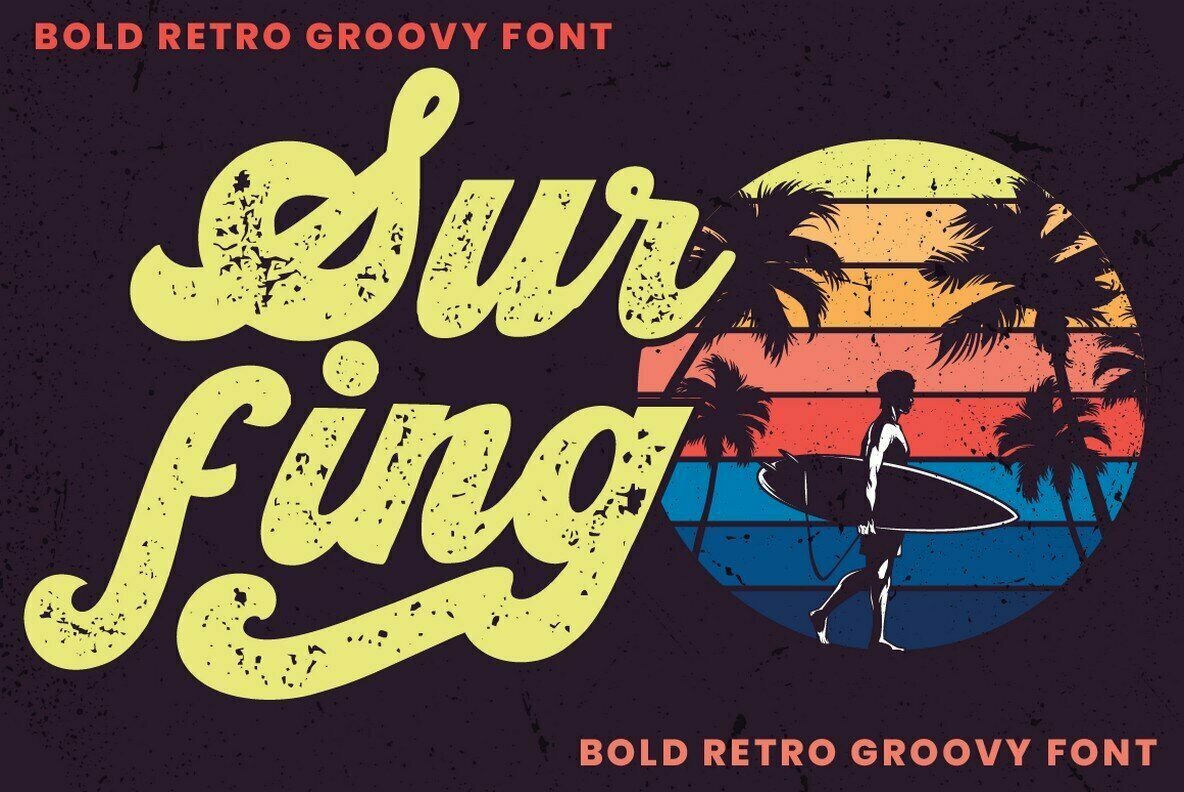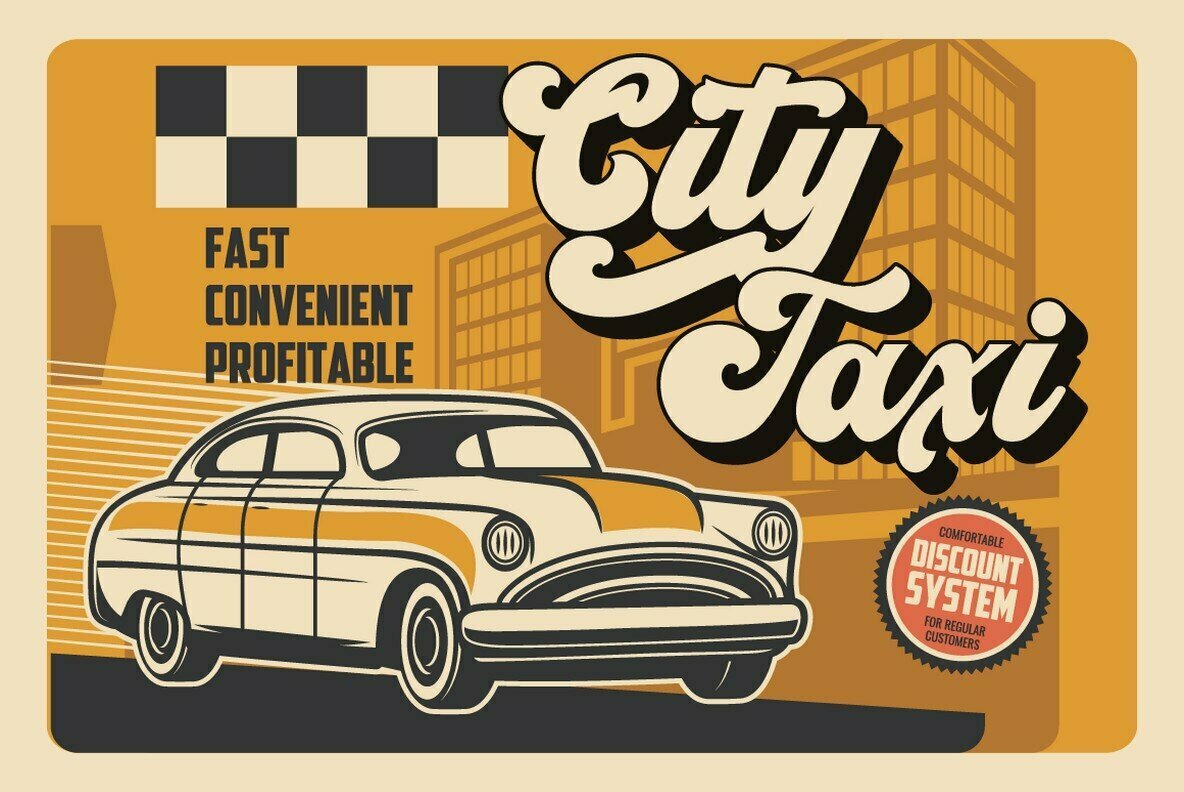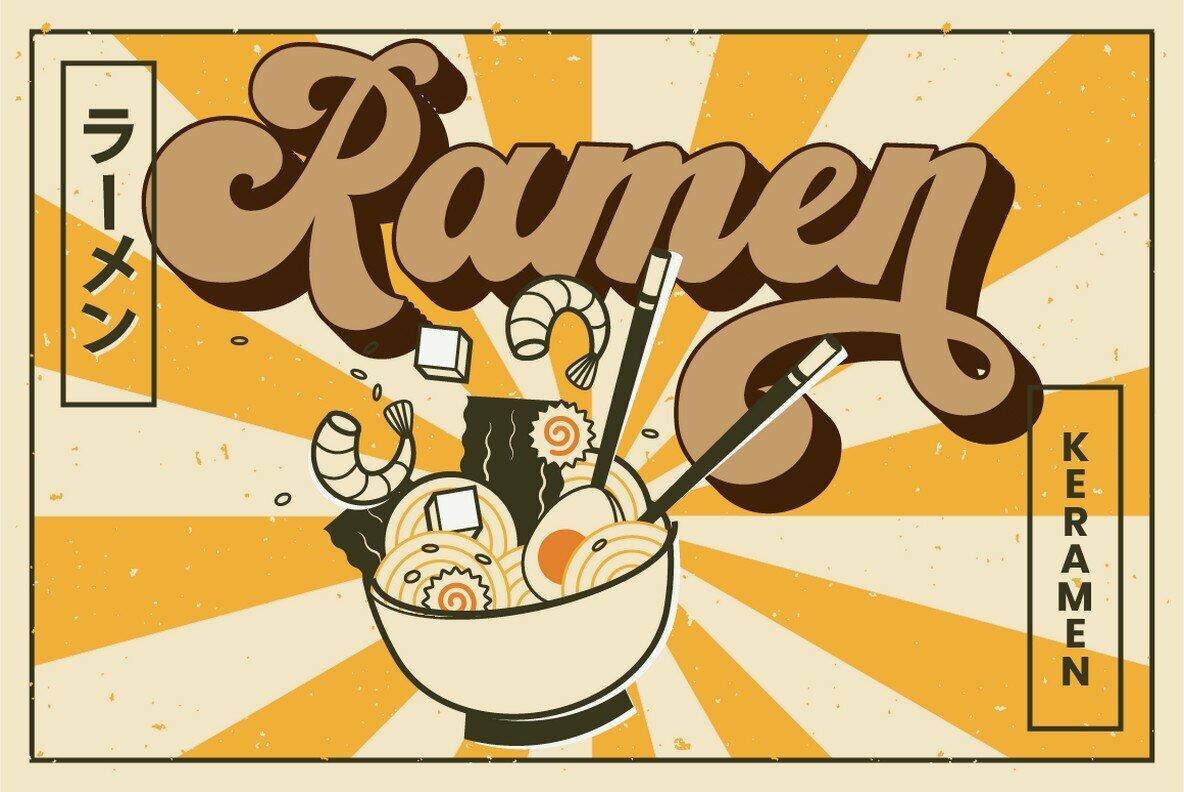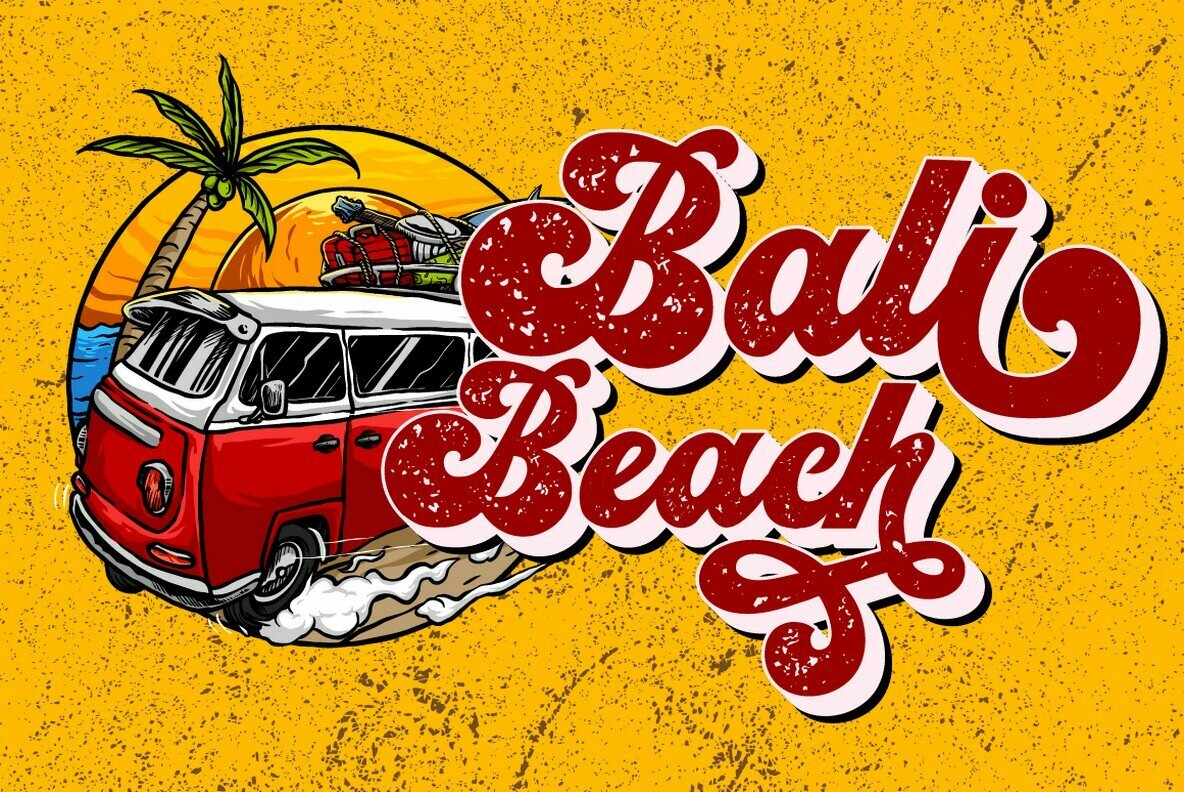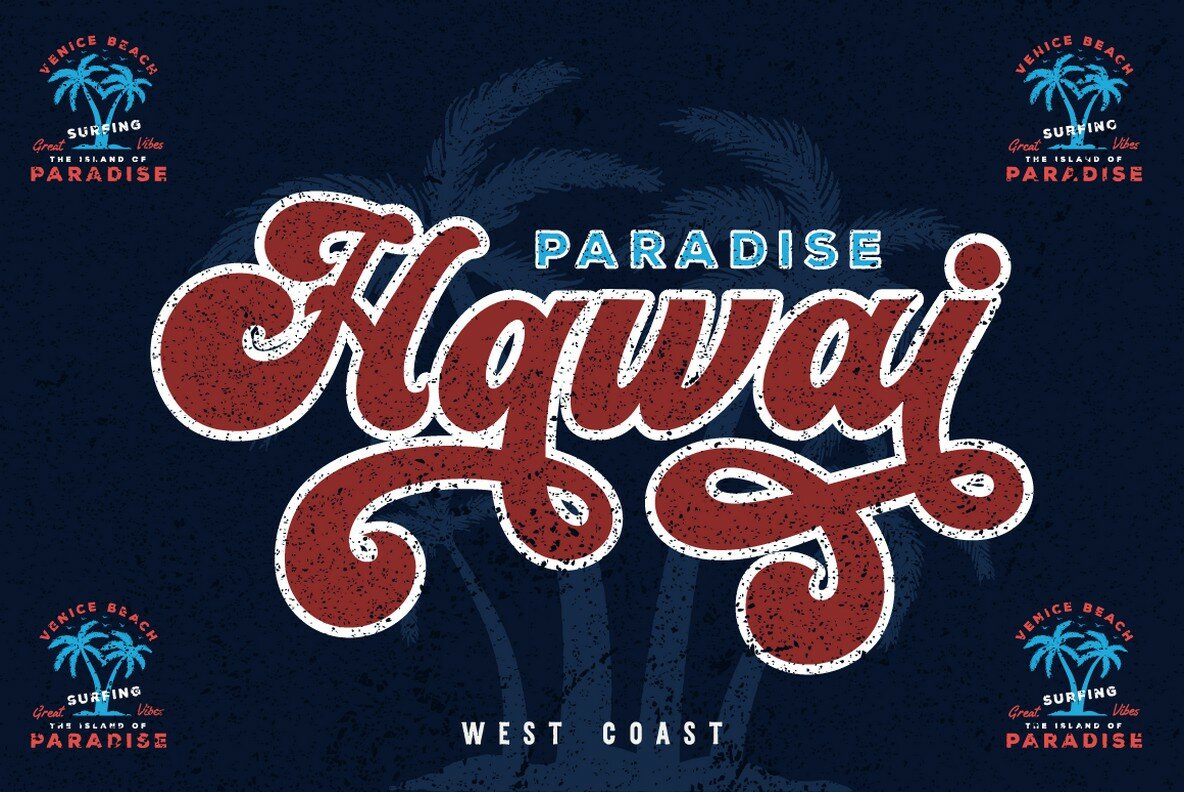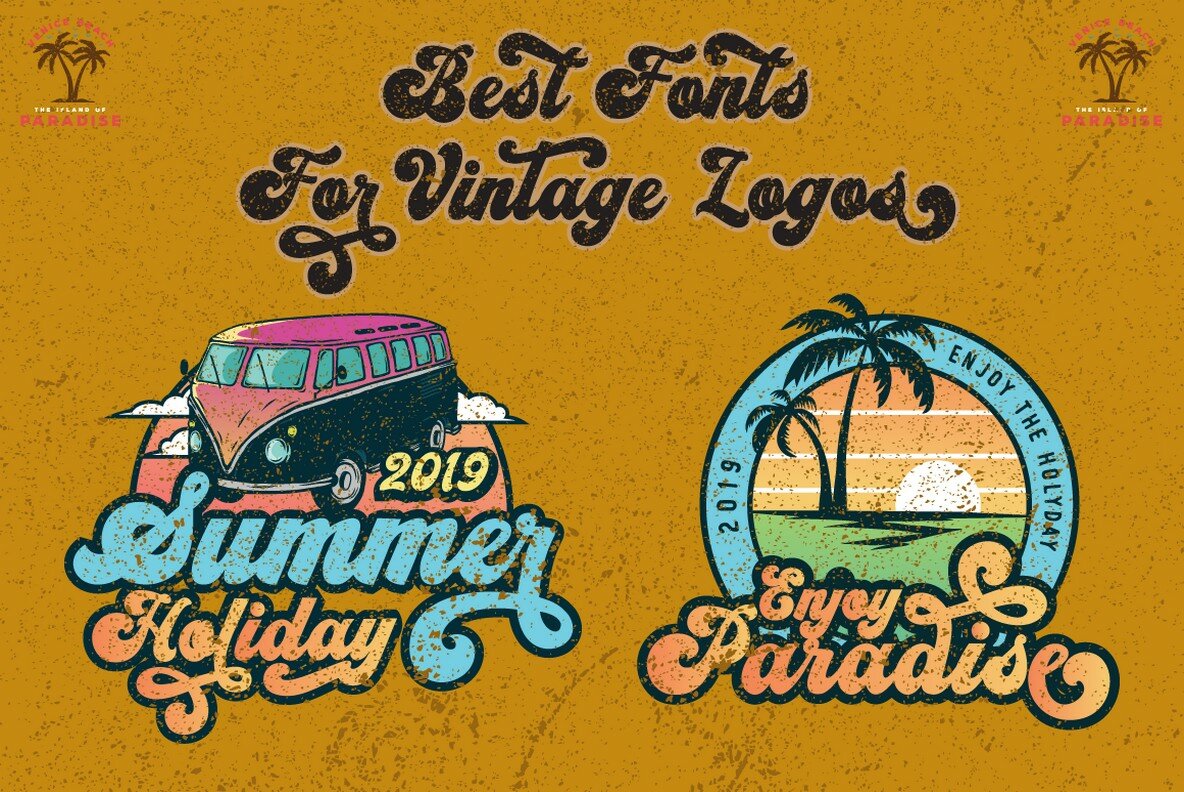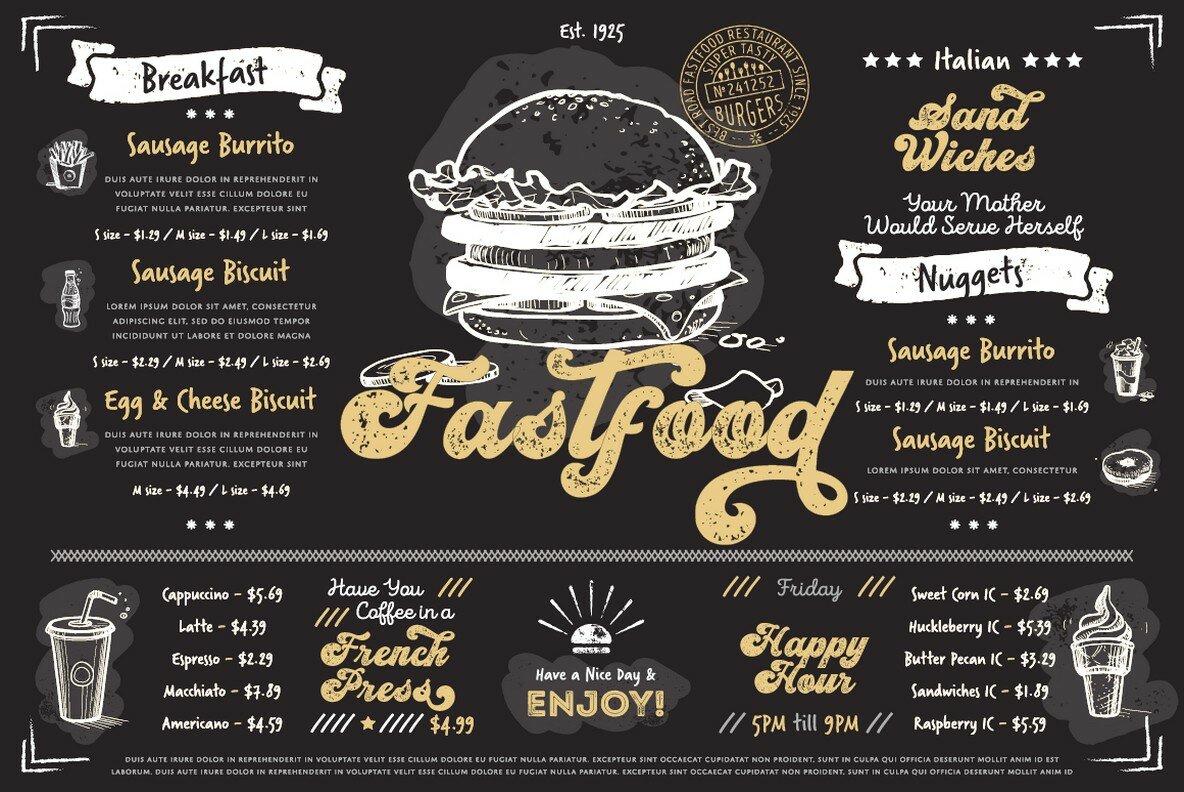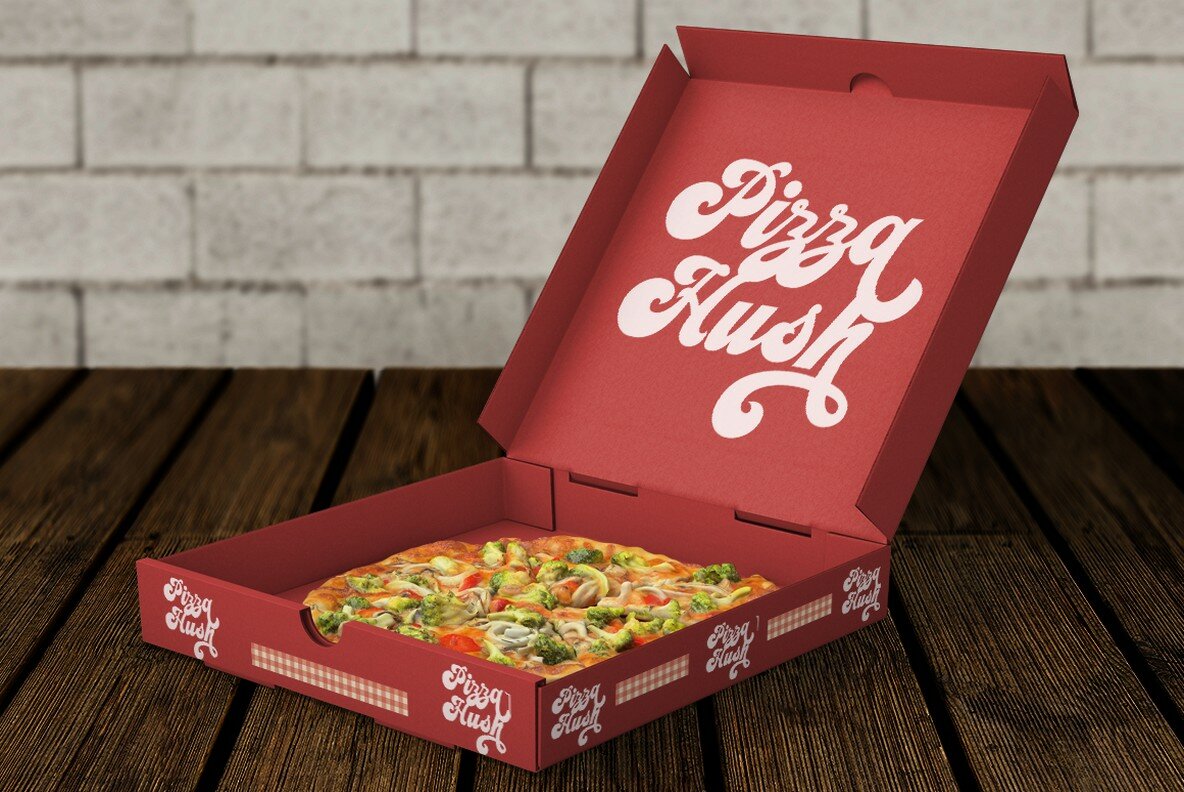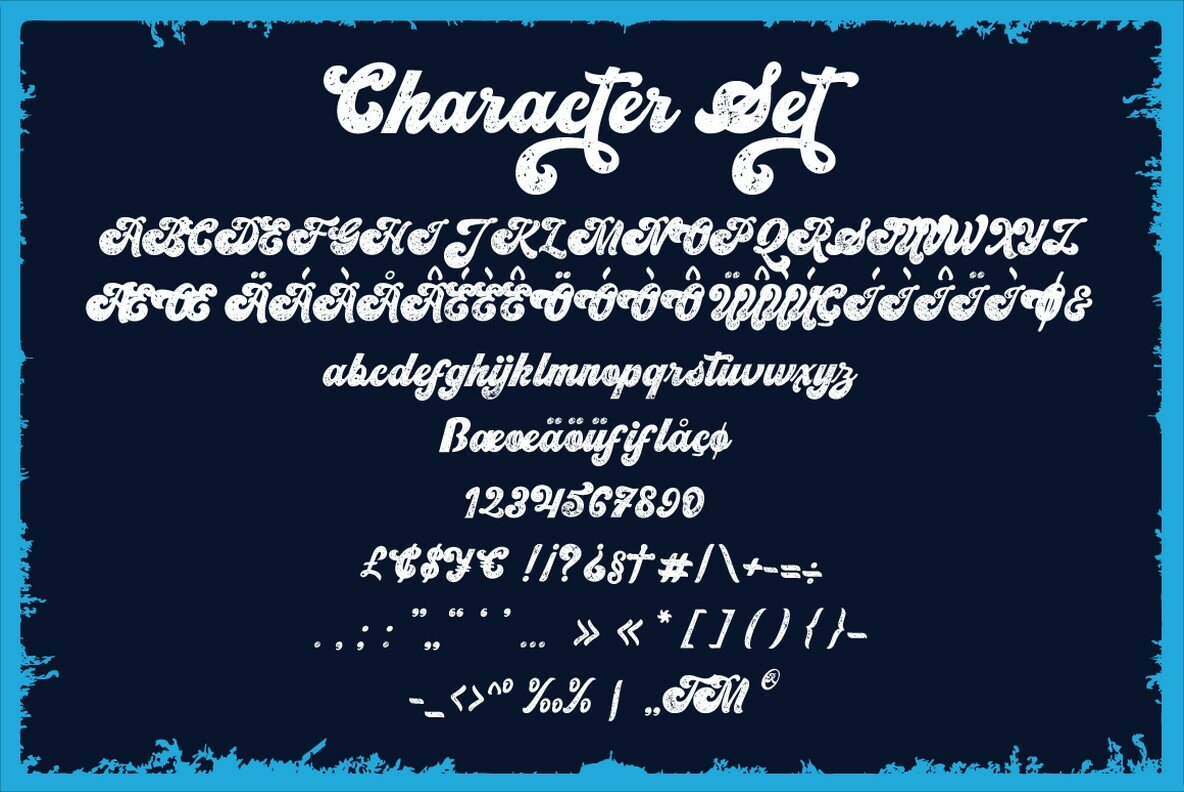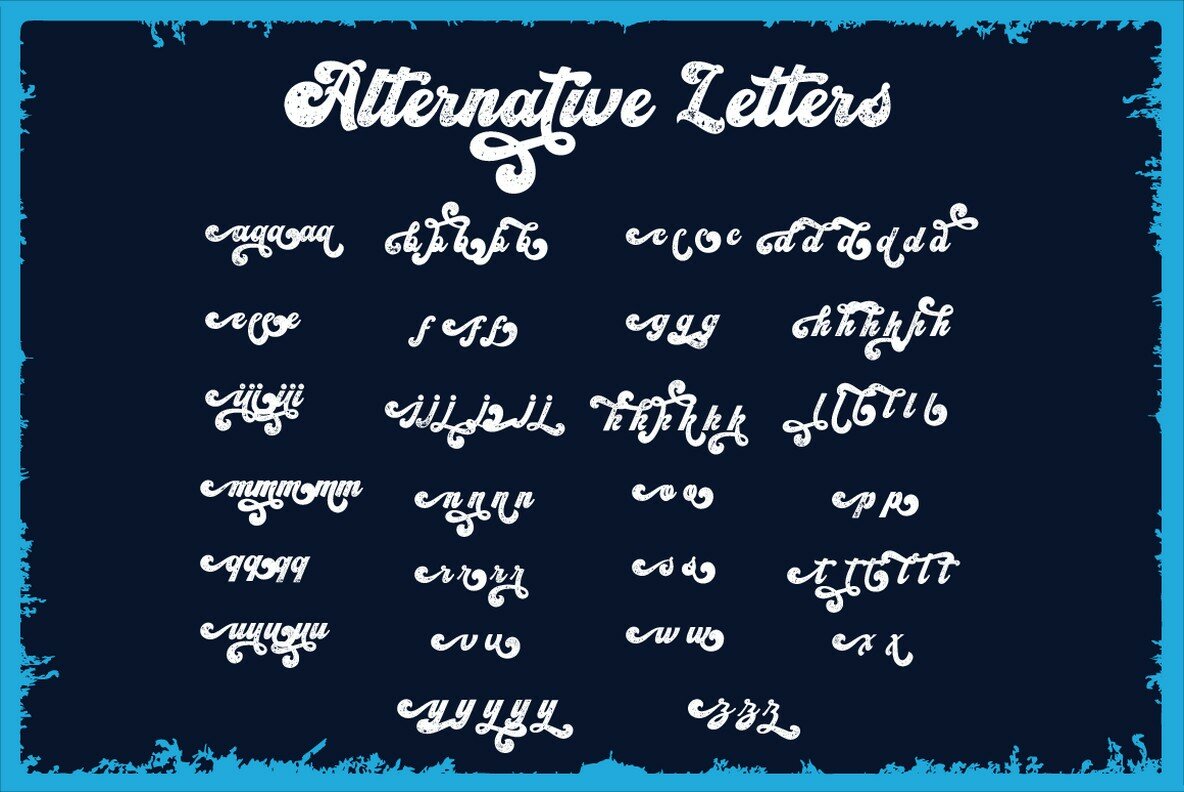
Vintage King Font
Vintage King Regular
Vintage King Rough
Reminiscent of the 1970s and 1980s, Vintage King merges retro typography with bold character, offering both clean and rough versions for versatile applications. Perfect for vintage and retro designs, its robust style suits logos, badges, posters, and much more. This font includes OpenType features with a rich set of alternates, ideal for crafting exceptional lettering. Accessing alternate glyphs requires programs that support OpenType features, such as Adobe Illustrator, Photoshop, Indesign, or CorelDraw.Vintage King: A Bold Retro Script Font